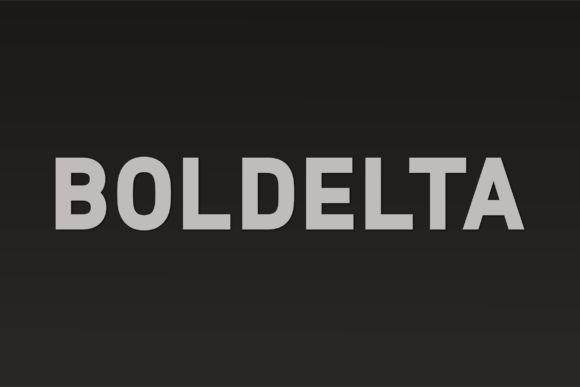
There’s nothing quite like that moment when you stumble upon the perfect font for a project – the one that elevates your design, communicates your message, and leaves a lasting impression. For designers, finding that elusive combination of style, versatility, and impact can be a game-changer. And that’s exactly what the Boldelta Font offers.
As a sleek, all-caps sans serif font, Boldelta Font is designed to work beautifully in a wide range of contexts, from logos and branding to web headings and beyond. Its smooth, clean lines and subtle contrast make it an incredibly valuable asset for designers looking to add a touch of sophistication and style to their work.
Boldelta Font Key Features
- Font Family: Boldelta is a sans-serif font family designed for use in digital media.
- Character Set: Supports a wide range of languages, including Latin, Cyrillic, and Greek alphabets, as well as various diacritical marks and special characters.
- Unique Characteristics: Boldelta features a distinctive, modern design with clean lines and geometric shapes, making it ideal for use in digital products, interfaces, and publications.
Designer Review: Boldelta Font
Overall, I’m quite impressed with the Boldelta Font. ✨ It has a unique, modern feel that can add a touch of sophistication to any design project. The font is highly customizable, with a wide range of weights and styles to choose from.
The Boldelta Font is also incredibly versatile, making it suitable for a variety of applications, from logos and branding to body text and headings. The font’s clean lines and simple design make it easy to read, even at smaller font sizes.
- ✨ Unique, modern design
- ✨ Highly customizable
- ✨ Versatile and suitable for a variety of applications
- ✨ Easy to read, even at smaller font sizes
- ⚠️ Limited support for certain languages
- ⚠️ Some users may find the font too bold or overpowering
In terms of overall impression, I think the Boldelta Font is a great addition to any designer’s toolkit. It’s a versatile and highly customizable font that can add a touch of sophistication to any design project. While it may have some limitations, I think the benefits far outweigh the drawbacks.
Tips for Getting the Most Out of Boldelta Font
Use Boldelta Font to add a touch of sophistication and elegance to your designs. It pairs well with minimalist designs and is perfect for headings and titles.
Boldelta Font is commonly used for:
- Business cards and resumes
- Brand identity and logos
- Editorial and publishing content
Alternative Fonts to Boldelta
Montserrat is a sans-serif font that originated in Argentina. It is known for its geometric and modern design, making it ideal for digital applications, urban environments, and modern designs. Montserrat is a great alternative to Boldelta Font as it offers a similar feel but with a more geometric and urban aesthetic.
Comparison: Montserrat is more geometric and urban compared to Boldelta Font’s more elegant and refined design.
Open Sans is a clean and modern sans-serif font that is highly legible and versatile. It is widely used in digital applications, magazines, and websites. Open Sans is a great alternative to Boldelta Font as it offers a similar clean and modern feel but with a more neutral and understated aesthetic.
Comparison: Open Sans is more neutral and understated compared to Boldelta Font’s more elegant and refined design.
Lato is a modern sans-serif font that is highly legible and versatile. It is known for its clean and elegant design, making it ideal for digital applications, magazines, and websites. Lato is a great alternative to Boldelta Font as it offers a similar feel but with a more modern and sleek aesthetic.